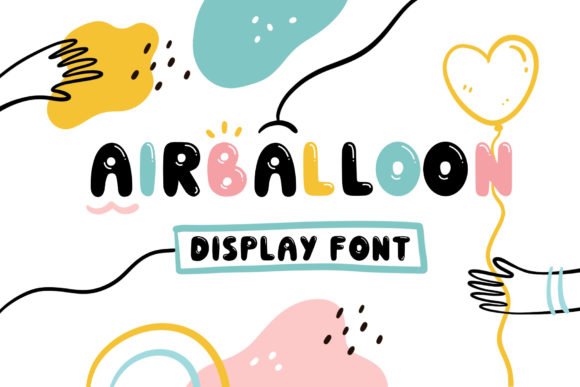
Introduction to Airballoon Font
Airbaloon is a cute display font.
It embodies playfulness and authenticity and is the perfect choice for any children activity or school project Add this chunky lettered font to your designs and notice how it makes them come alive.
Key Features of Airballoon Font
Why Choose Airballoon Font?
Airballoon Font offers exceptional quality and versatility, making it a valuable addition to your design toolkit. Whether you’re creating for personal projects or commercial use, Airballoon Font delivers professional results.